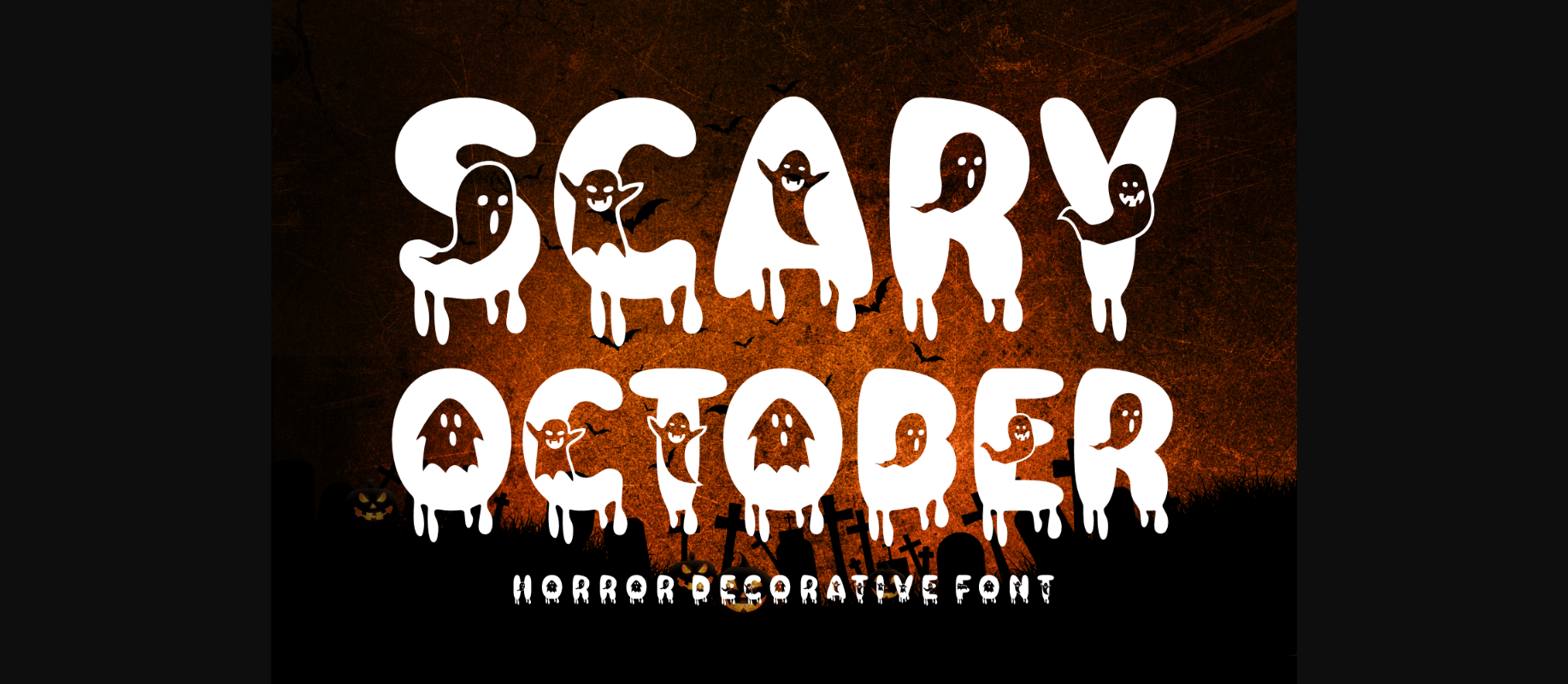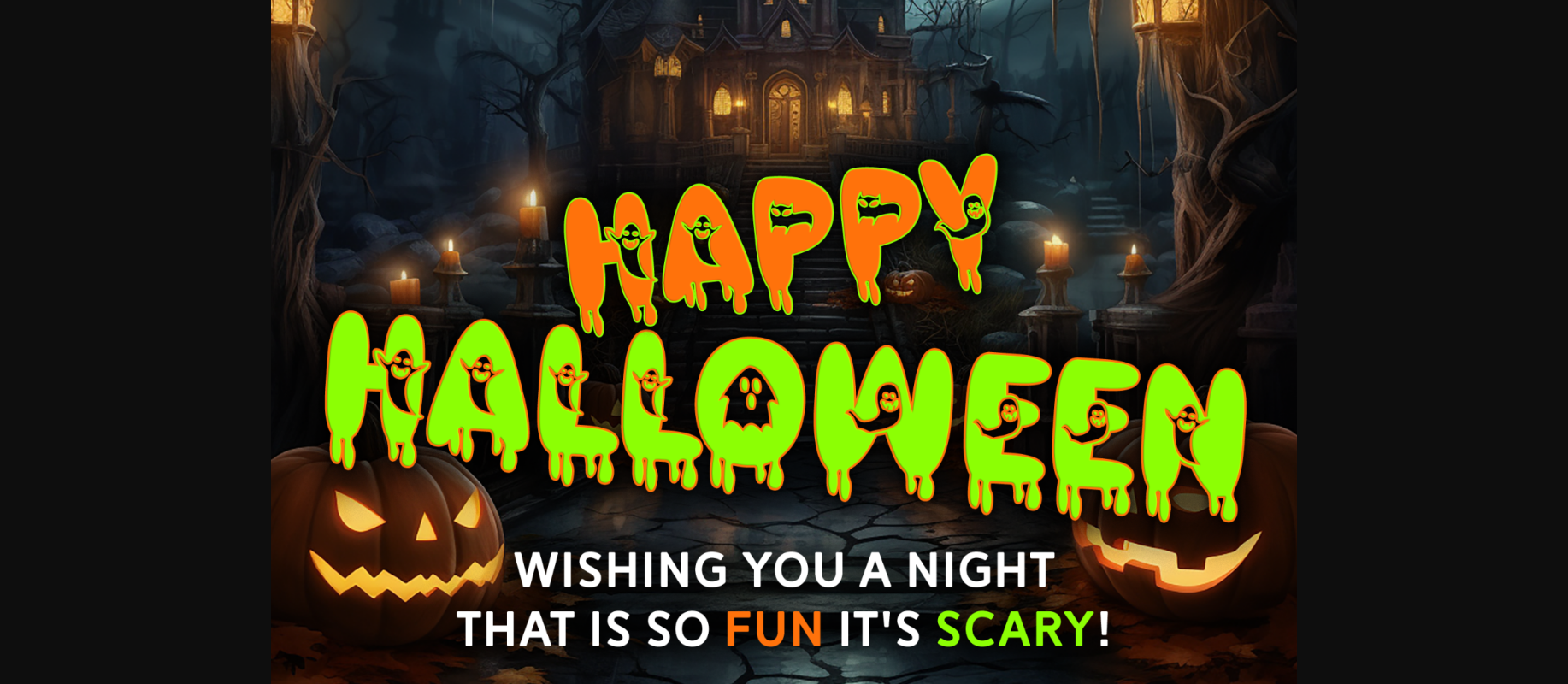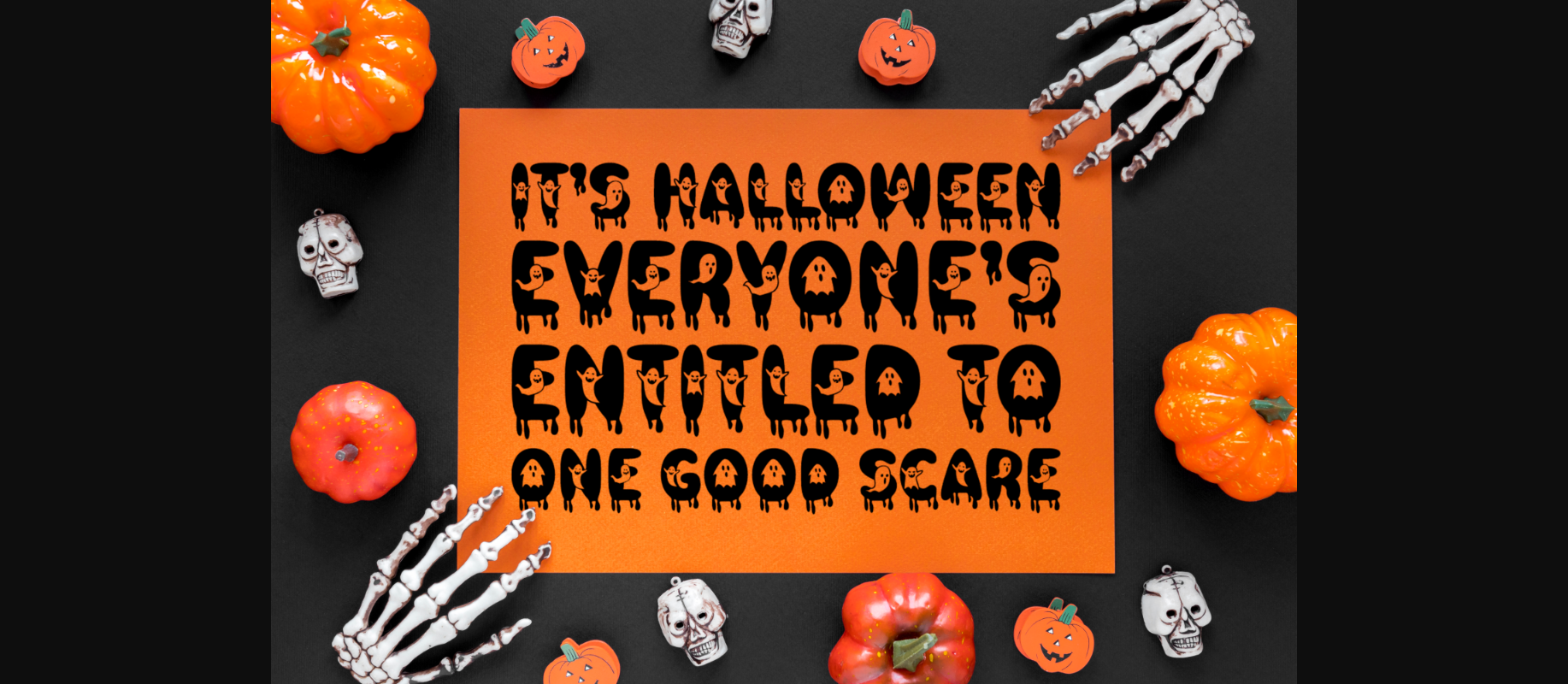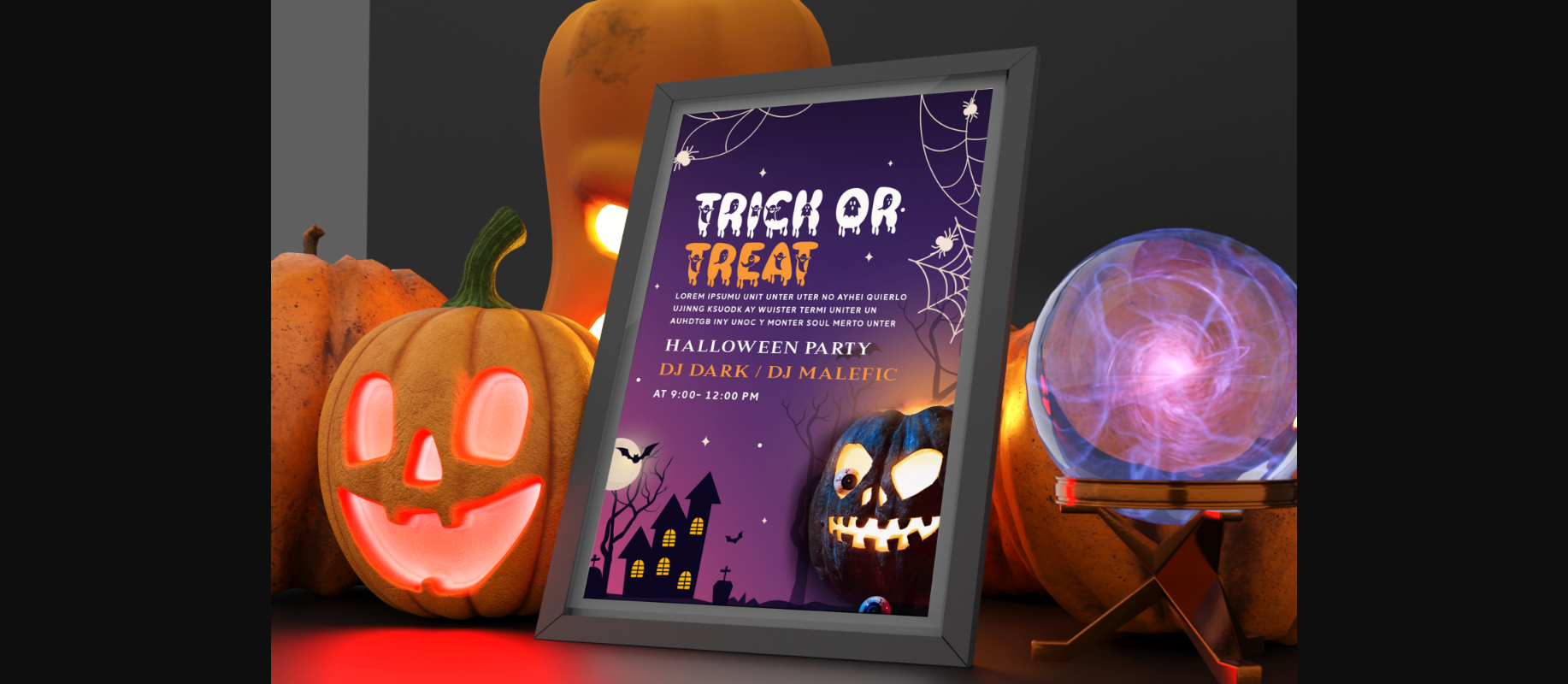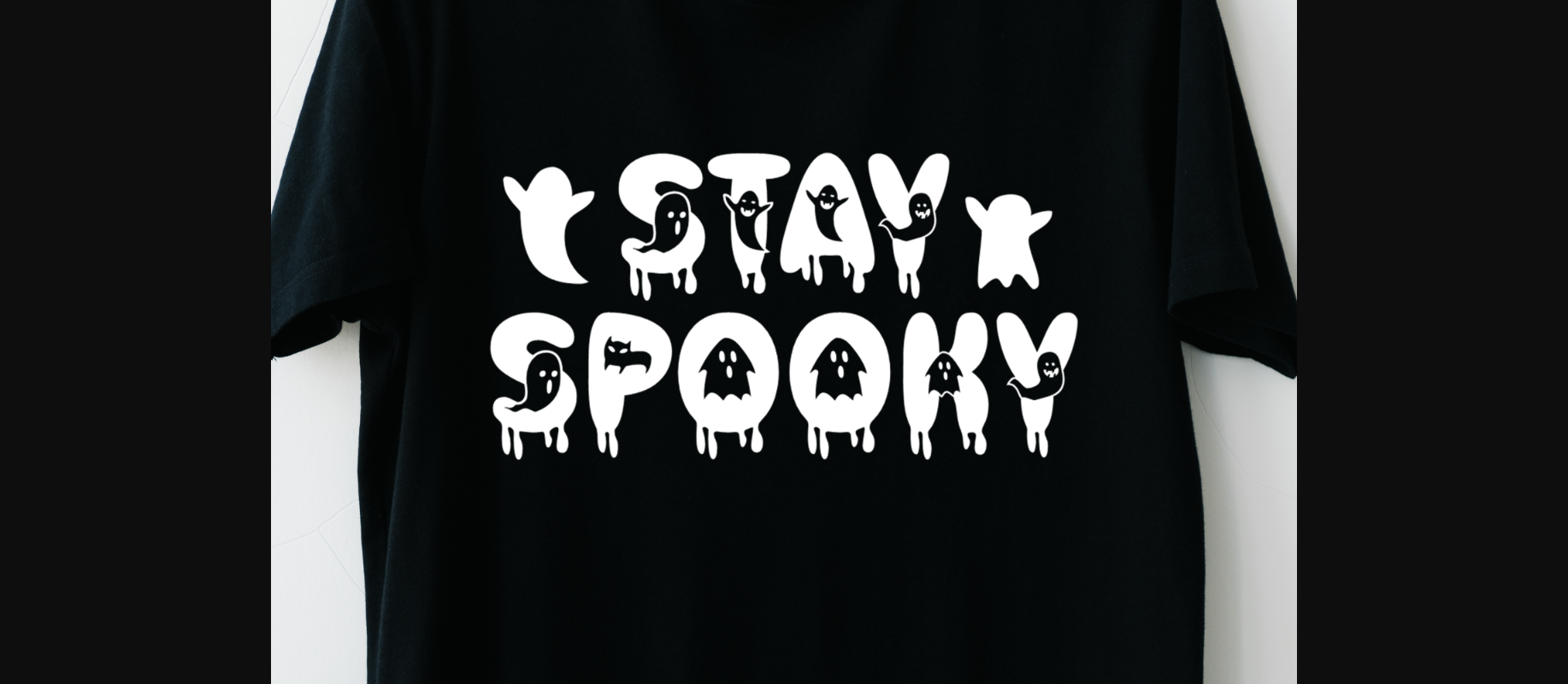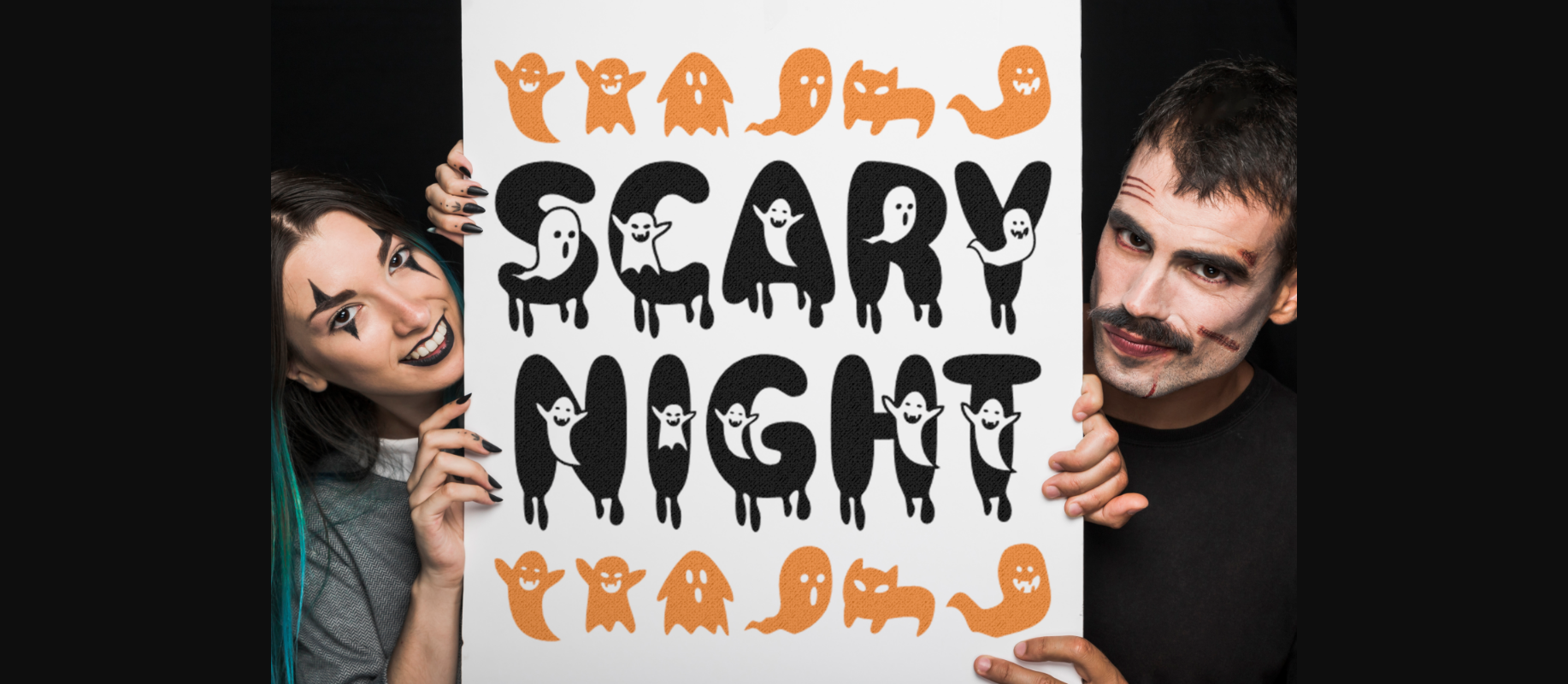
Scary October Font
About Scary October Font
Scary October is an adorable Halloween font that will bring smiles instead of scares. Each letter is playfully adorned with cheerful little ghosts, making it perfect for adding a cute and spooky touch to your Halloween-themed projects. Whether you’re creating party invitations, decorations, or greeting cards, Scary October is the ideal choice for capturing the fun and whimsy of the season.